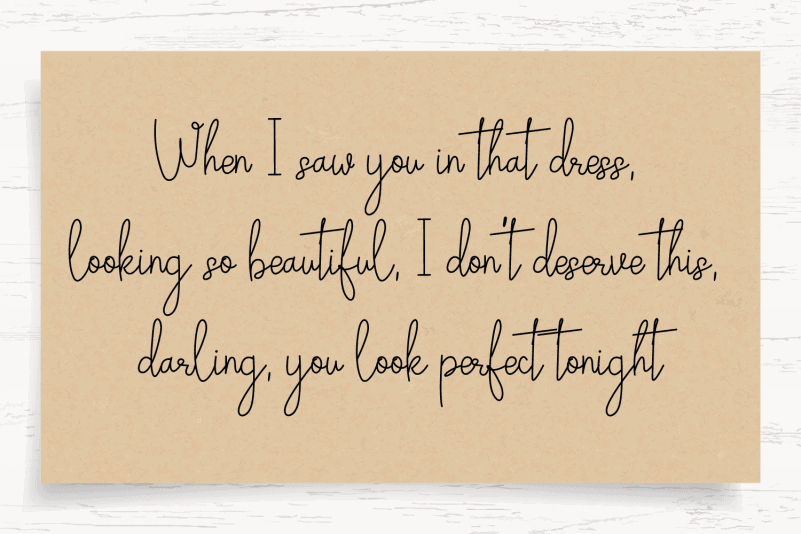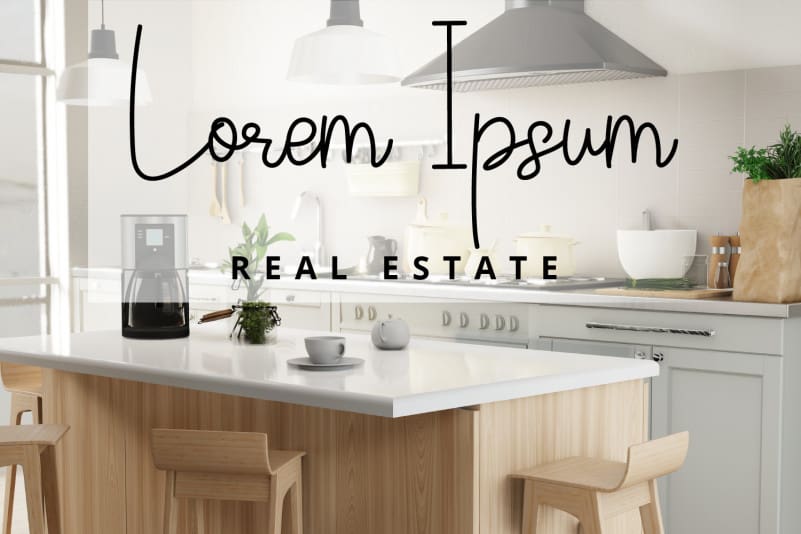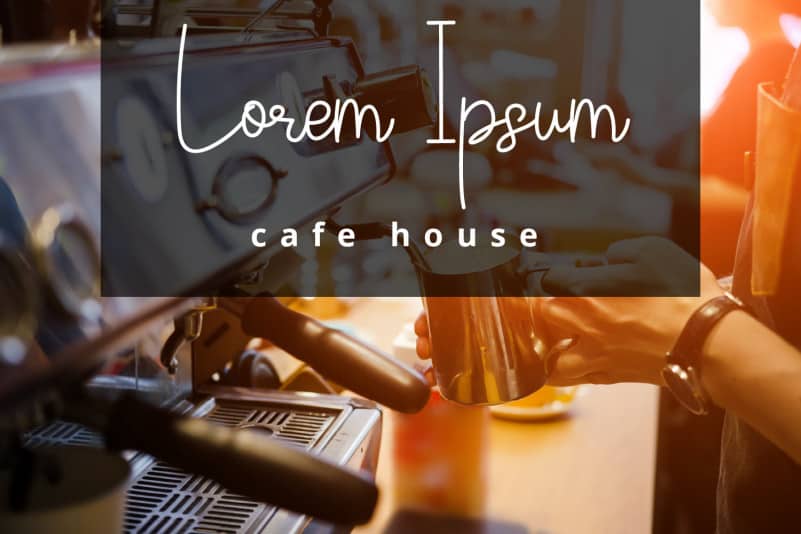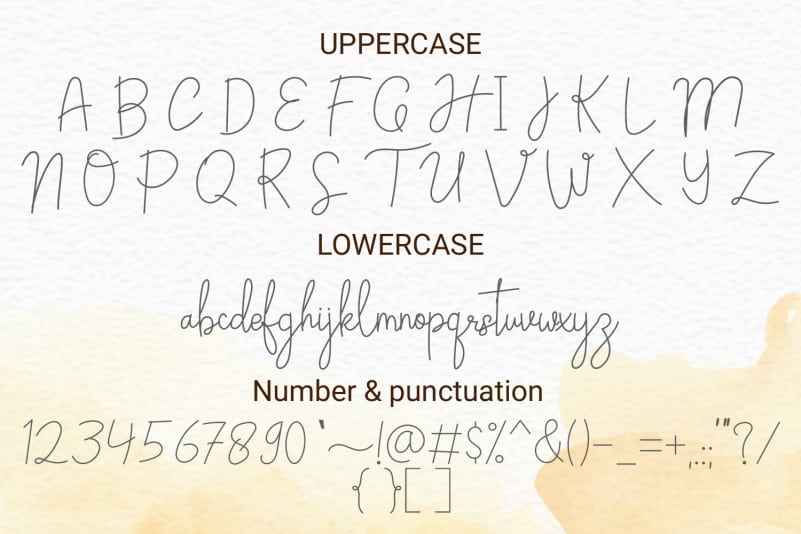
High Handmade Handwritten Font
High Handmade Handwritten Font is an exquisite handwritten font, masterfully designed to become a true favorite. It maintains its classy calligraphic influences while feeling contemporary and fresh. Fall in love with it and bring your projects to the highest levels!